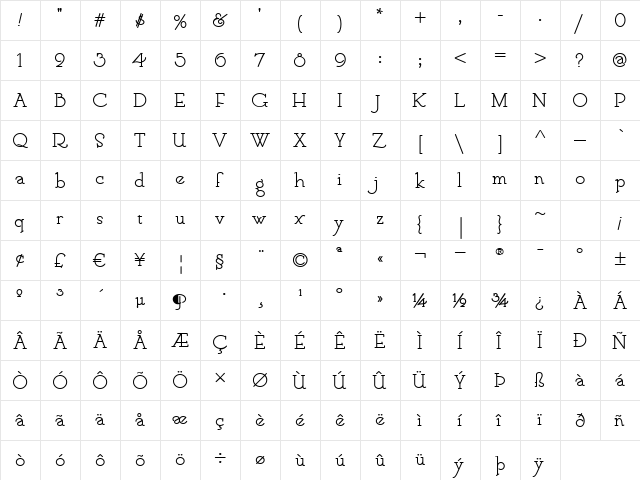
PhotoplayITC Regular
Design Context for PhotoplayITC Typeface
PhotoplayITC is a composed and adaptable typeface that performs quietly and consistently across a wide range of design contexts.